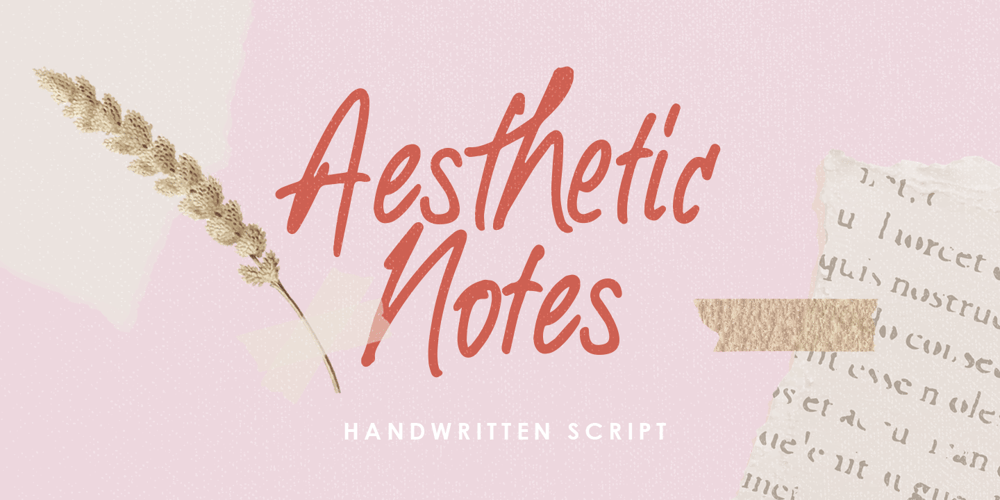
Aesthetic Notes Font Family was designed by Hendry Juanda and published by Letterhend. Aesthetic Notes contains 1 styles and family package options. Introducing Aesthetic Notes! This font is perfect for branding, packaging, logotype, headline, wedding, invitation, quotes, etc.Features : uppercase & lowercase numbers and punctuation multilingual alternates and ligatures PUA encoded We highly recommend using a program that supports OpenType features and Glyphs panels like many of Adobe apps and Corel Draw, so you can see and access all Glyph variations.